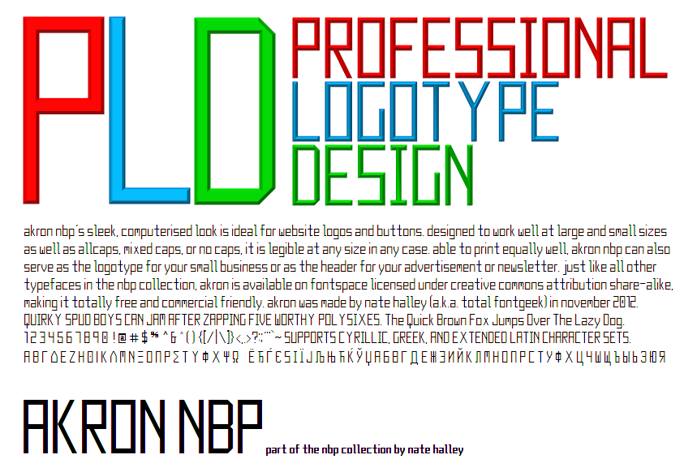
Akron NBP Font
Square tech-oriented typefaces that work nicely at large or small sizes.
Regular, Bold, Italic and Bold Italic weights of
-Akron Sans
-Akron Serif
-Akron SmallCaps
and
-Akron Shades